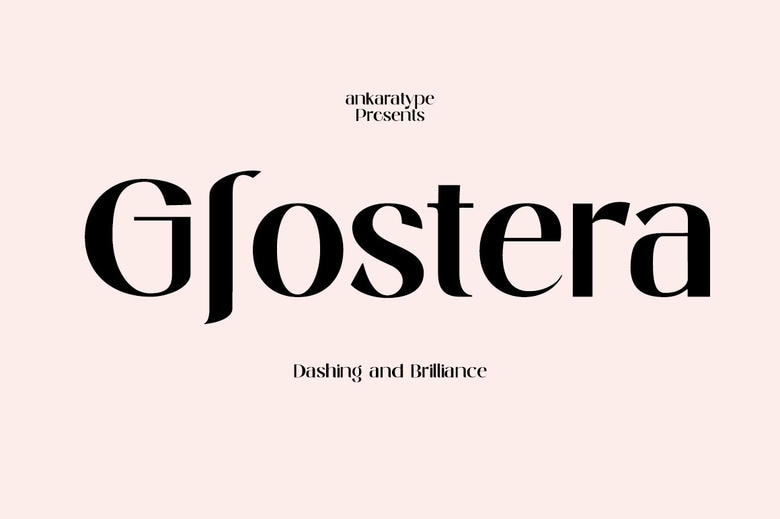
Glostera Font
Glostera is a flexible typeface having a smooth and clean solution in all sans and italics forms. The overall strength of this typeface is that it is used to present order and harmony among letters. It is most suitable as Instagram, posters, Web design, magazines, logo, or product.
Glostera Sans Serif Font